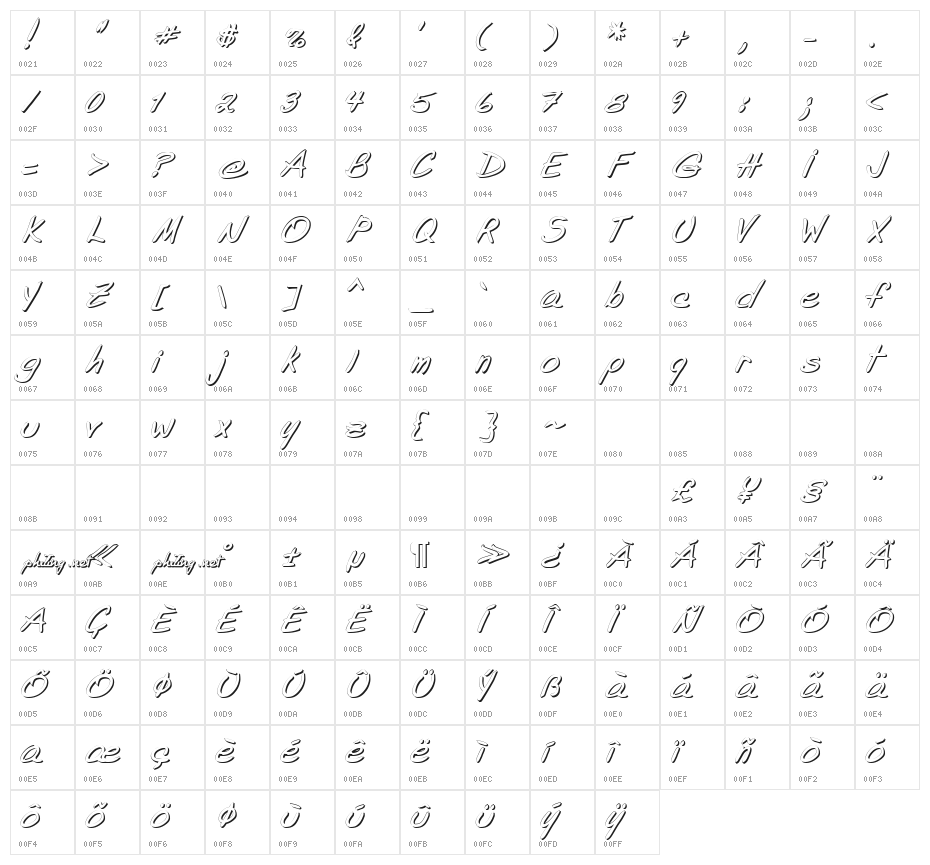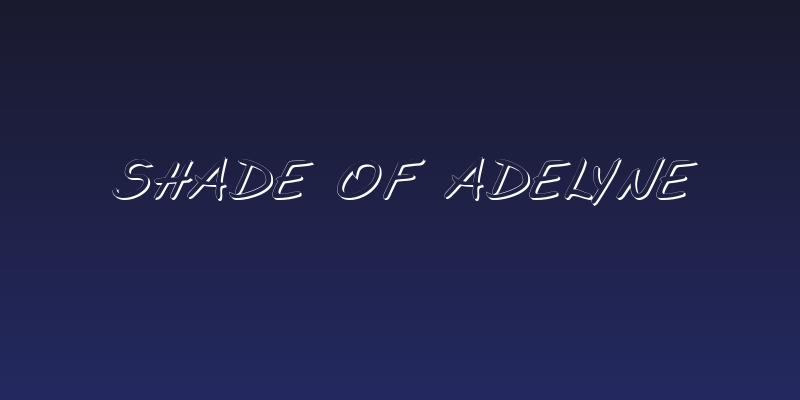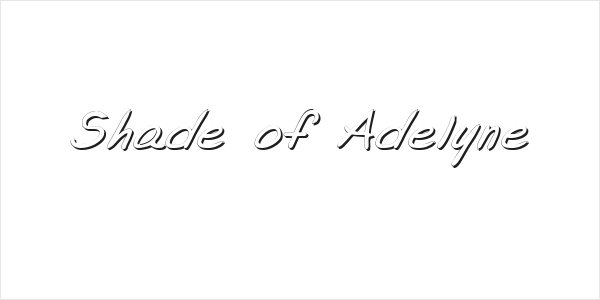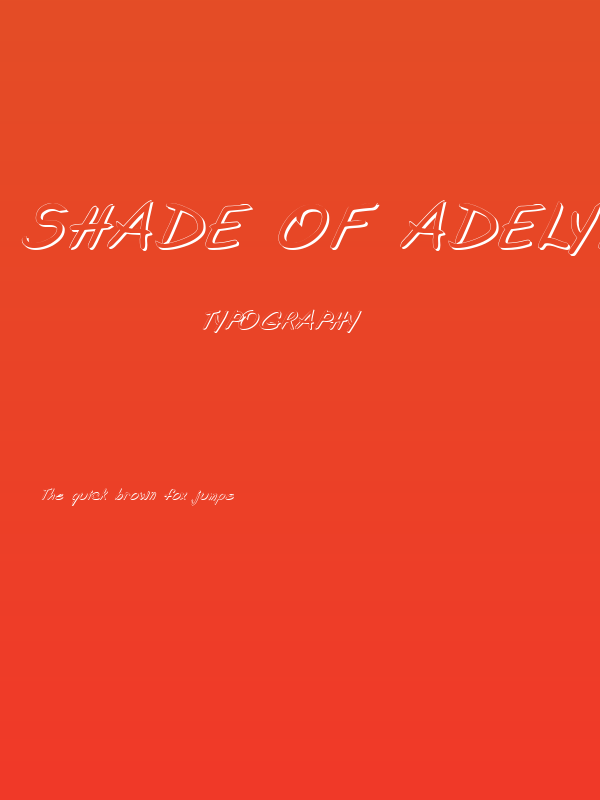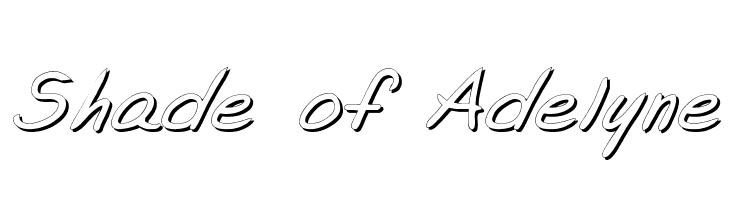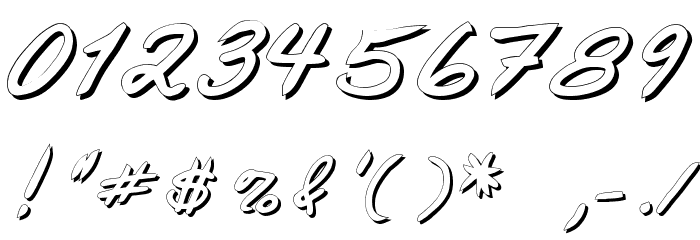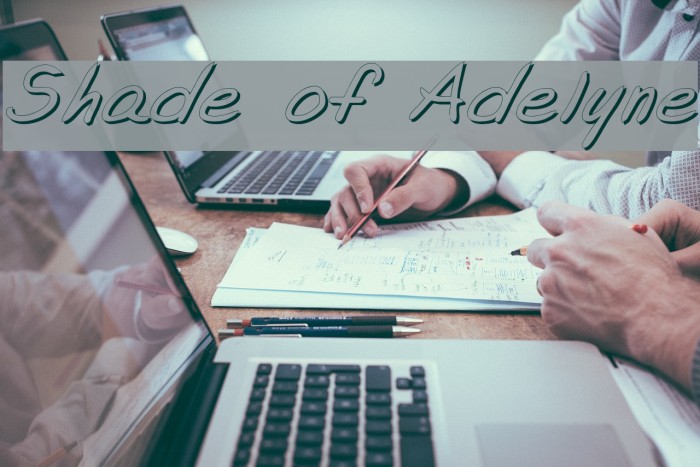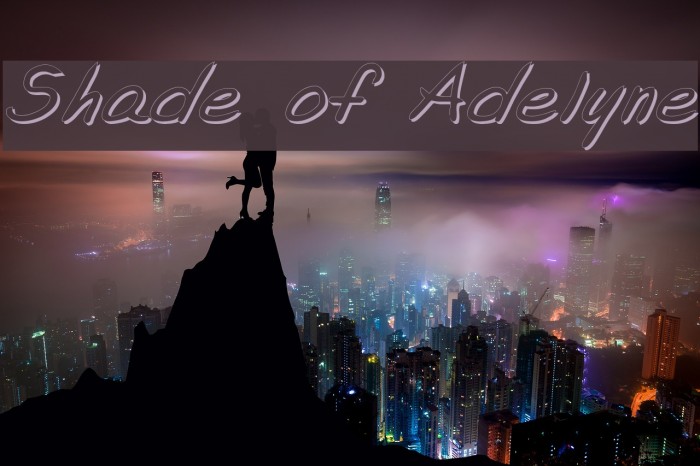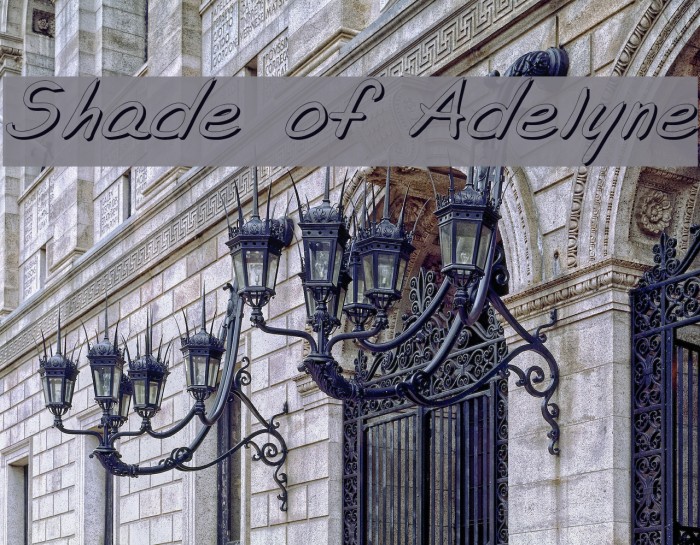
Shade of Adelyne Font
Shade of Adelyne Description
This font features a dynamic and flowing script style with a modern twist. Each character is crafted with smooth, elegant curves and a slight slant, giving it a sense of motion and fluidity. The letters are outlined with a bold shadow, adding depth and a three-dimensional effect. This distinctive style combines both classic and contemporary elements, making it versatile for various design needs. The uppercase and lowercase letters maintain a consistent style, while the numerals and special characters are designed to complement the overall aesthetic. The font's unique appearance makes it suitable for creative and eye-catching designs.
| Use Case | Logos, Headlines, Decorative text |
| Proposed Projects | Ideal for branding, invitations, posters, and social media graphics. |